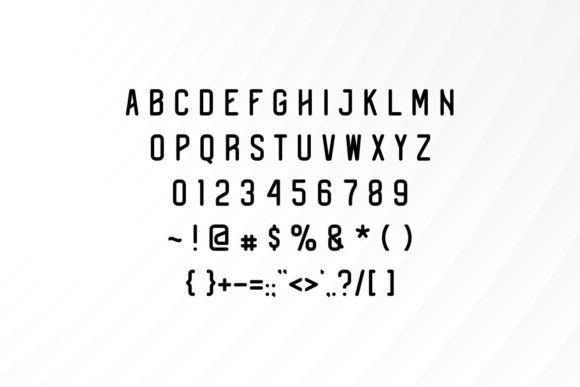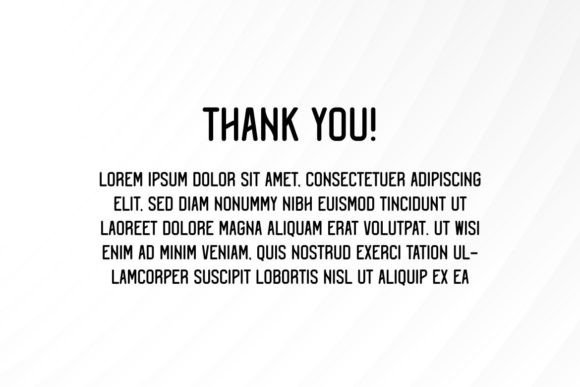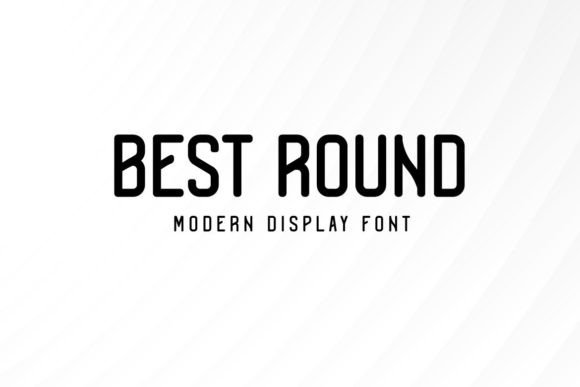
Discover the Best Round Font for Your Design Needs
Are you tired of using the same old fonts for your designs? Look no further! The Best Round font is here to revolutionize your creative projects with its modern, clean, and rounded display style. Perfect for a wide range of applications, from posters and cards to book titles and headlines, this font is sure to become your new go-to.
What Makes Best Round Font So Special?
The Best Round font boasts an incredibly versatile style that can be used to create spectacular designs for various purposes. Its clean and rounded aesthetic makes it ideal for:
- Posters: Create eye-catching posters for events, promotions, or announcements that grab attention.
- Cards: Design beautiful greeting cards, invitations, or business cards that leave a lasting impression.
- Book Titles: Give your book a professional and modern look with a stunning title font.
- Headlines: Make your headlines pop with a font that’s both stylish and easy to read.
- News: Use Best Round for news articles, blogs, or online publications to add a touch of modernity.
- Banners: Create stunning banners for websites, social media, or events that showcase your message.
- Flyers: Design flyers that stand out from the crowd and capture attention.
- Stationery: Elevate your brand’s stationery with a beautiful and professional font.
The Benefits of Using Best Round Font
So, why choose Best Round font for your design projects? Here are just a few benefits:
- Versatility: Best Round font can be used for a wide range of applications, from digital to print.
- Modern Style: Its clean and rounded aesthetic gives your designs a modern and fresh look.
- Easy to Read: The font is designed to be highly legible, making it perfect for body text and headlines.
- Customizable: Experiment with different sizes, colors, and styles to make the font your own.
Tips for Using Best Round Font Effectively
To get the most out of Best Round font, follow these tips:
- Pair it with other fonts: Combine Best Round with other fonts to create a unique and visually appealing design.
- Experiment with colors: Try out different colors and gradients to add depth and interest to your design.
- Play with sizes: Use different font sizes to create a hierarchy of information and add visual interest.
- Keep it simple: Don’t over-accessorize – let the font speak for itself and shine.
Who Can Benefit from Best Round Font?
Best Round font is perfect for:
- Graphic designers: Expand your font library and offer your clients a modern and stylish option.
- Crafters: Add a professional touch to your handmade projects, such as cards, scrapbook pages, or DIY signs.
- Marketer: Elevate your brand’s visual identity with a modern and versatile font.
- Small business owners: Create stunning marketing materials, such as brochures, flyers, or social media graphics.
In conclusion, Best Round font is a game-changer for designers, crafters, and businesses looking to elevate their visual identity. Its modern, clean, and rounded display style makes it perfect for a wide range of applications. With its versatility, ease of use, and stunning aesthetic, Best Round font is sure to become your new favorite.